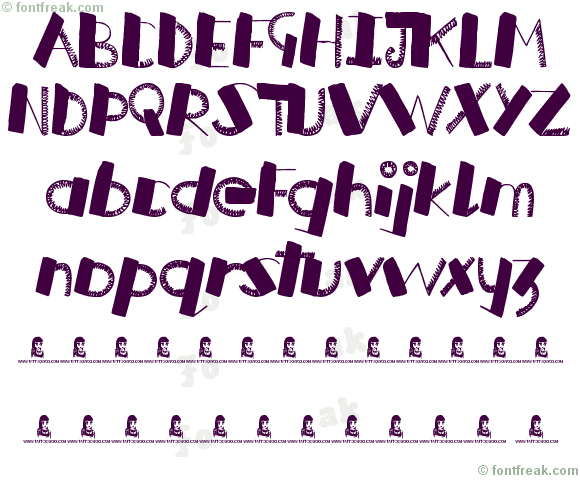
Russian Roulette
The Russian Roulette font by Jonathan S. Harris is a distinctive and eye-catching display typeface that captures attention with its whimsical yet bold aesthetic. This font falls into the decorative category, making it ideal for projects where a unique visual identity is essential. Characterized by its playful irregularities, the strokes exhibit a medium weight with varying widths that create a sense of dynamism. The letters feature a slightly distressed texture, giving them a rugged, hand-crafted appearance. Generous spacing between characters enhances readability while maintaining a lively rhythm.
This font is perfect for a variety of creative applications. It excels in tattoo designs, perfectly aligning with its name and appeal for body art enthusiasts. Additionally, it's suitable for designing engaging movie posters, where its unique flair can draw in viewers. Restaurant menus can benefit from the font’s boldness, making dish names stand out and enticing diners. The font can also be utilized in promotional materials for events or festivals, capturing the excitement and energy of such occasions. Graphic designers, small business owners, and content creators will find the Russian Roulette font free download particularly useful for projects requiring a striking visual element without compromising on quality.
What truly sets the Russian Roulette font apart is its versatile charm, allowing it to transcend typical decorative fonts. It brings an organic feel to any design while still being professional enough for commercial use. Its unique character makes it an excellent choice for those looking to infuse their projects with creativity and personality. Whether you are designing for print or digital media, this font ensures your work stands out in a crowded marketplace.